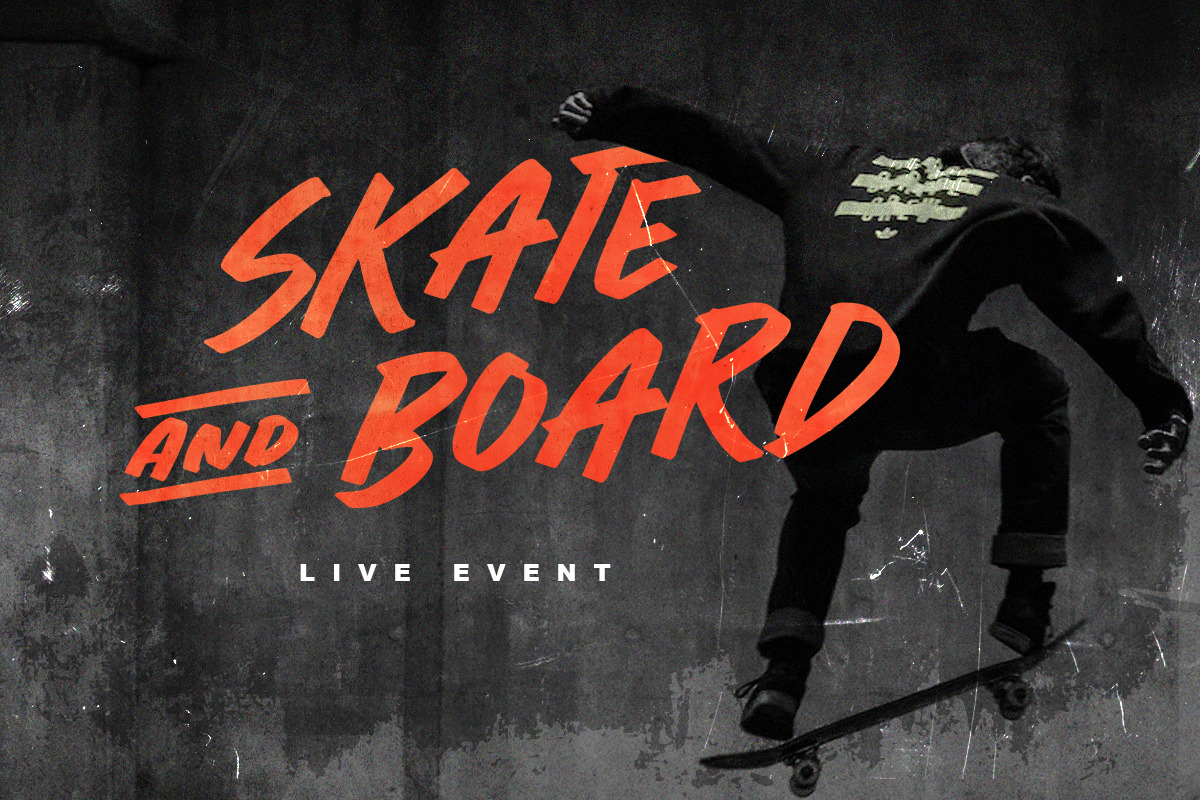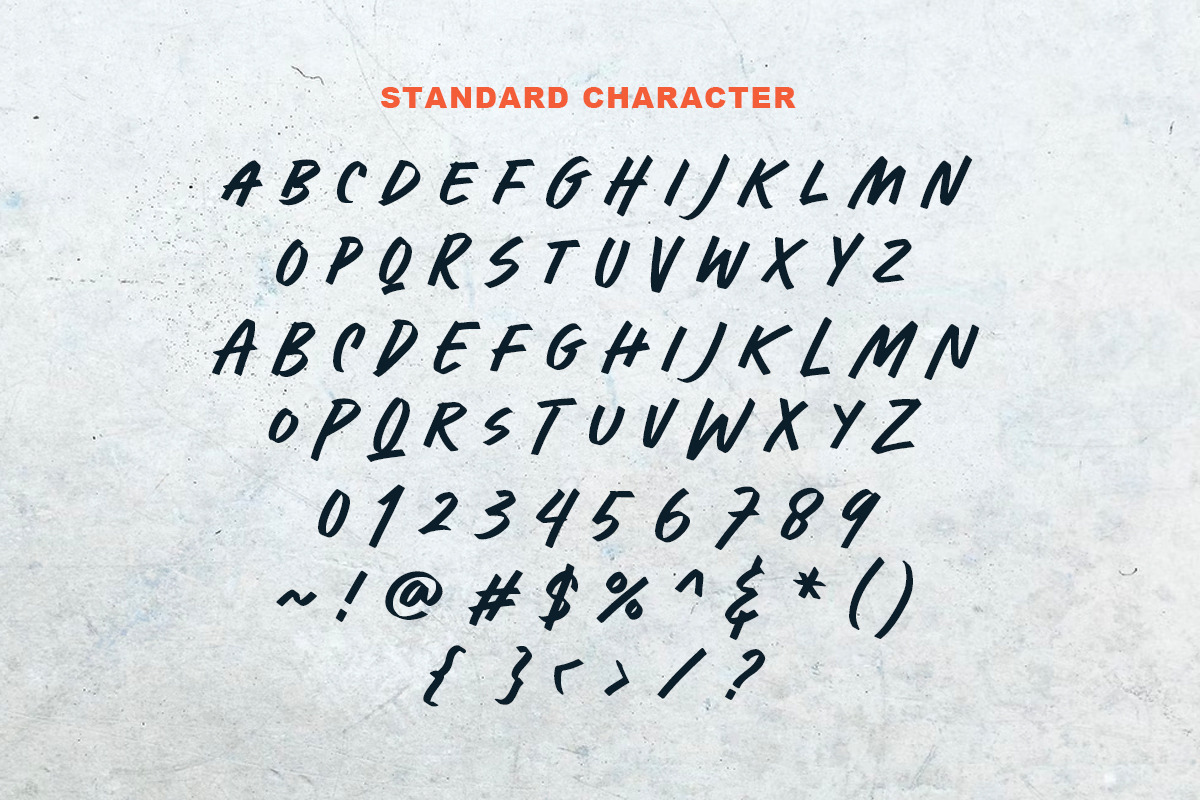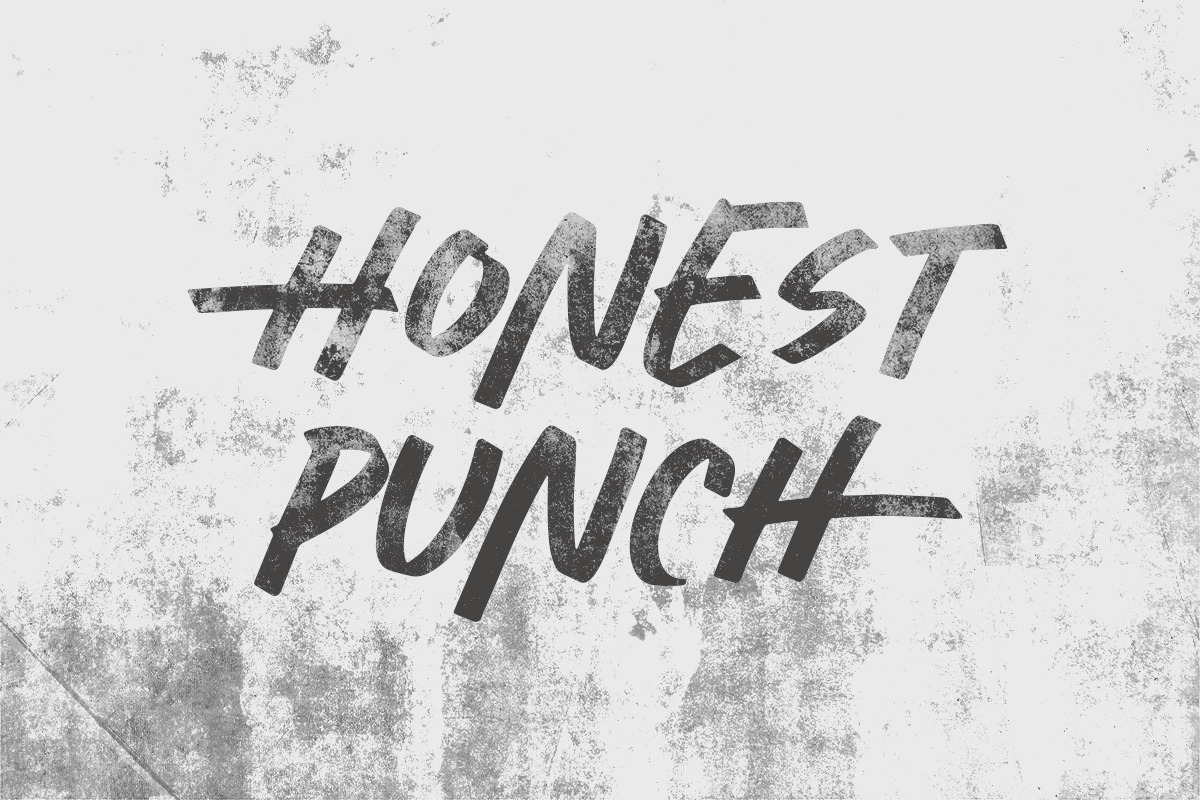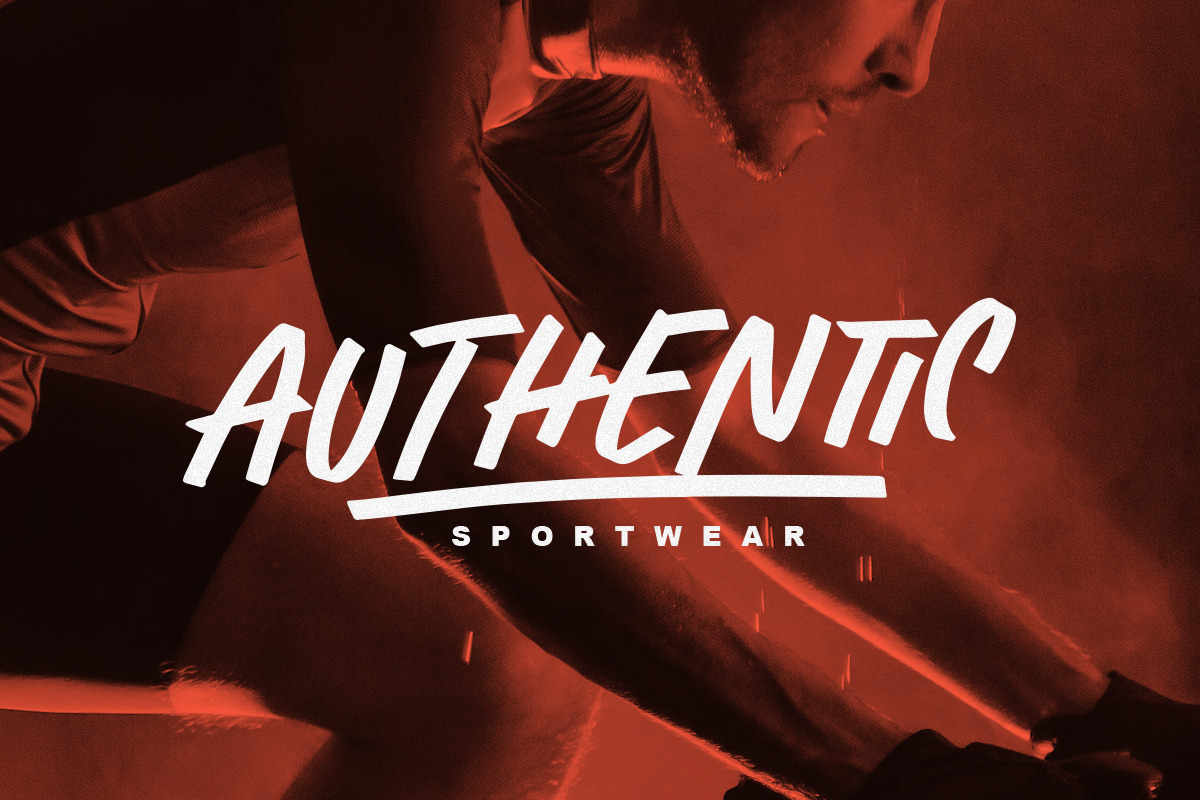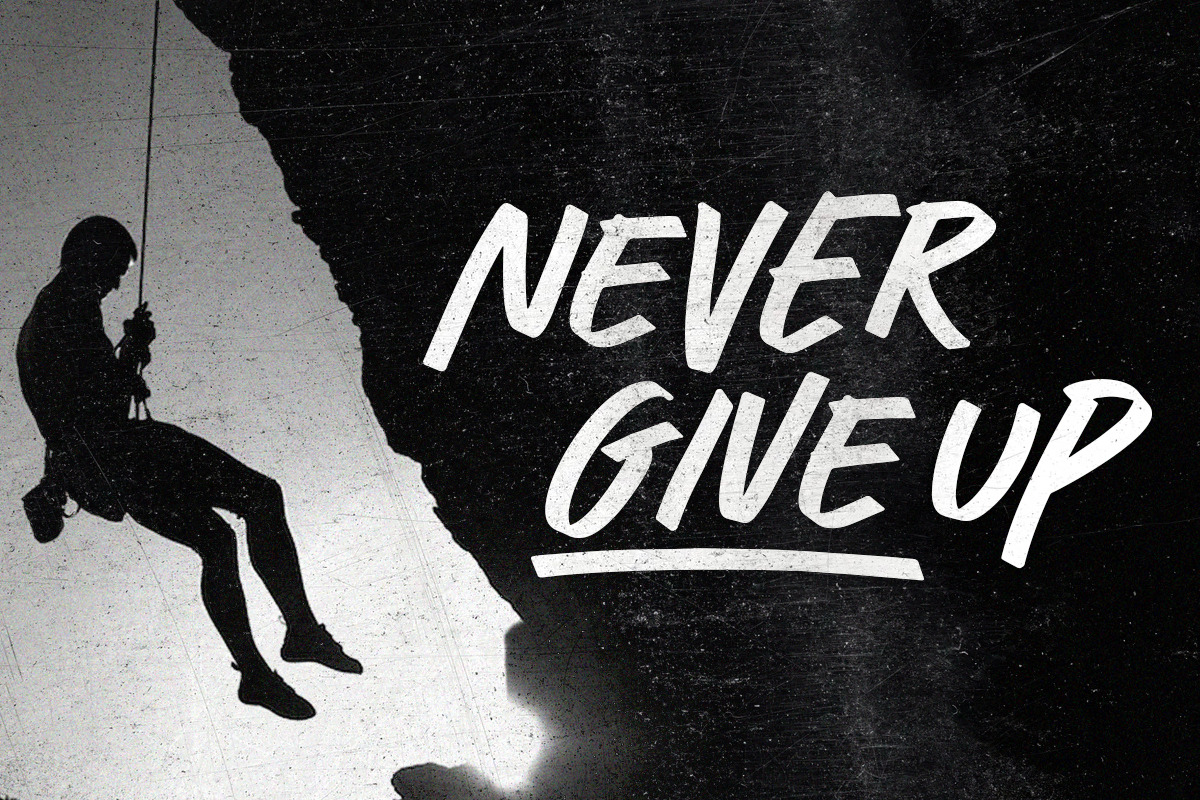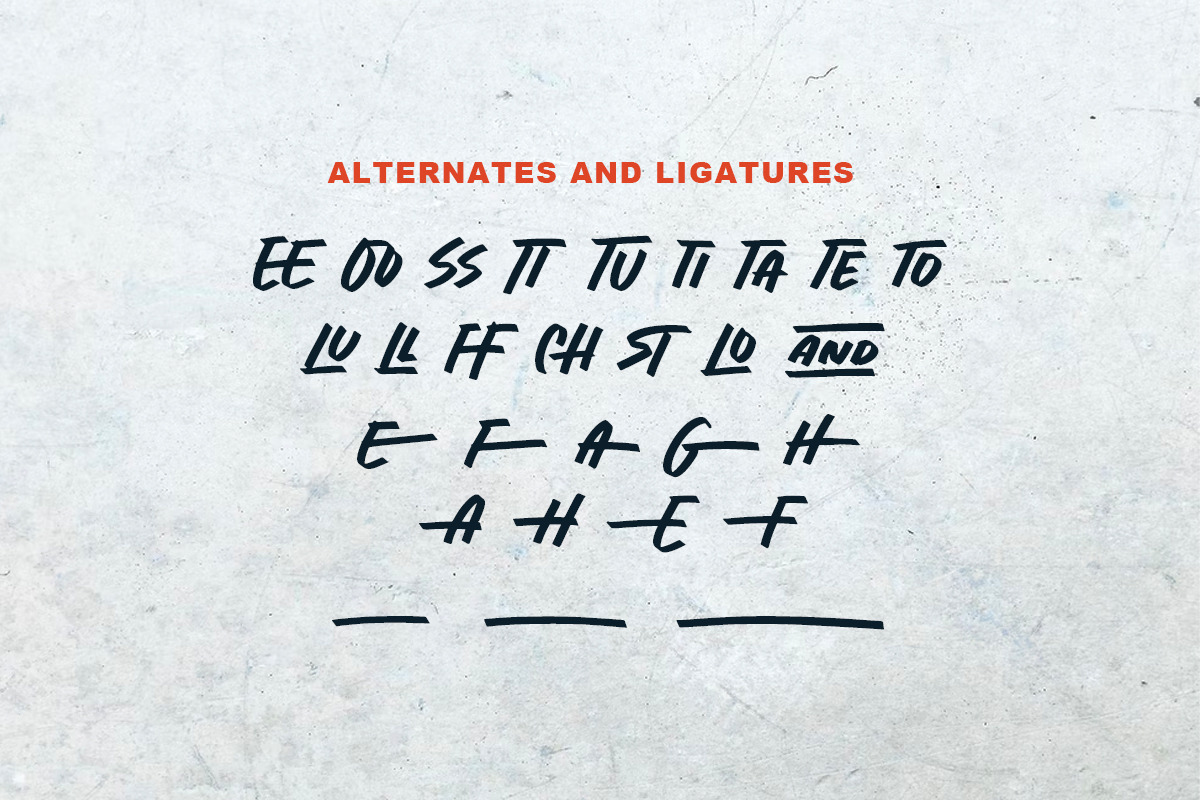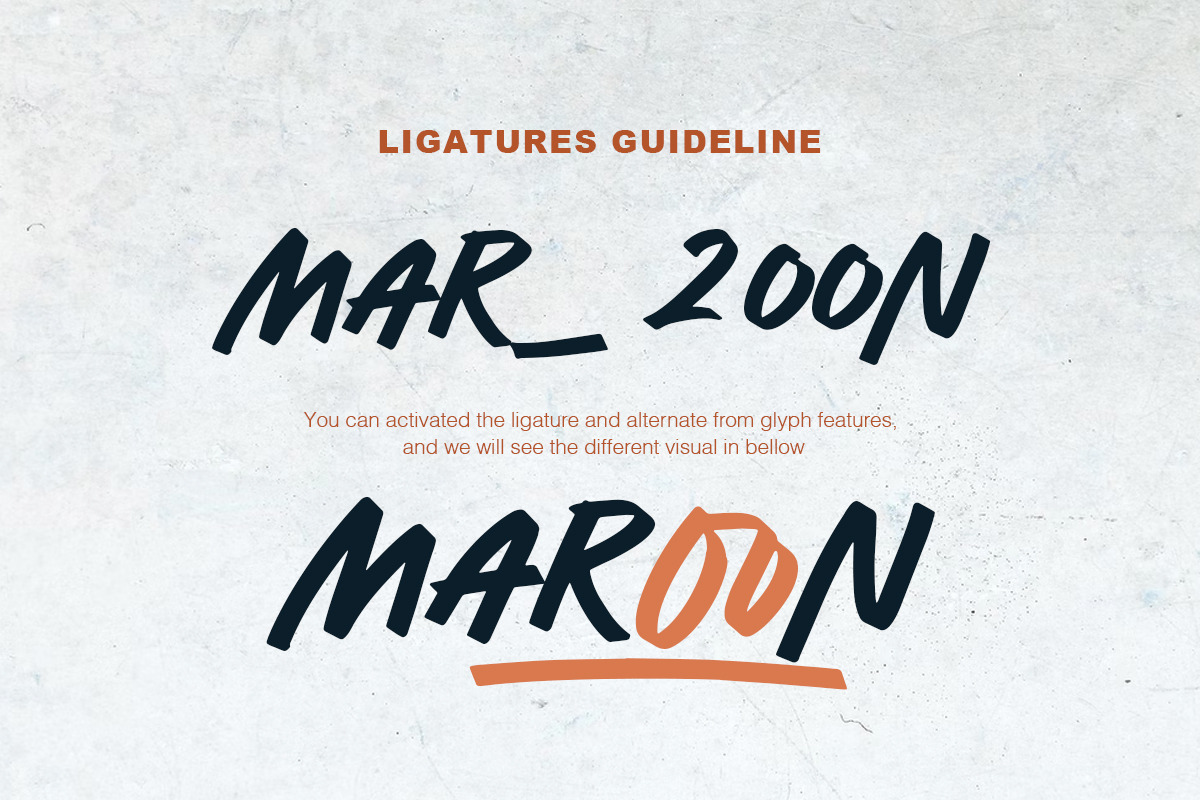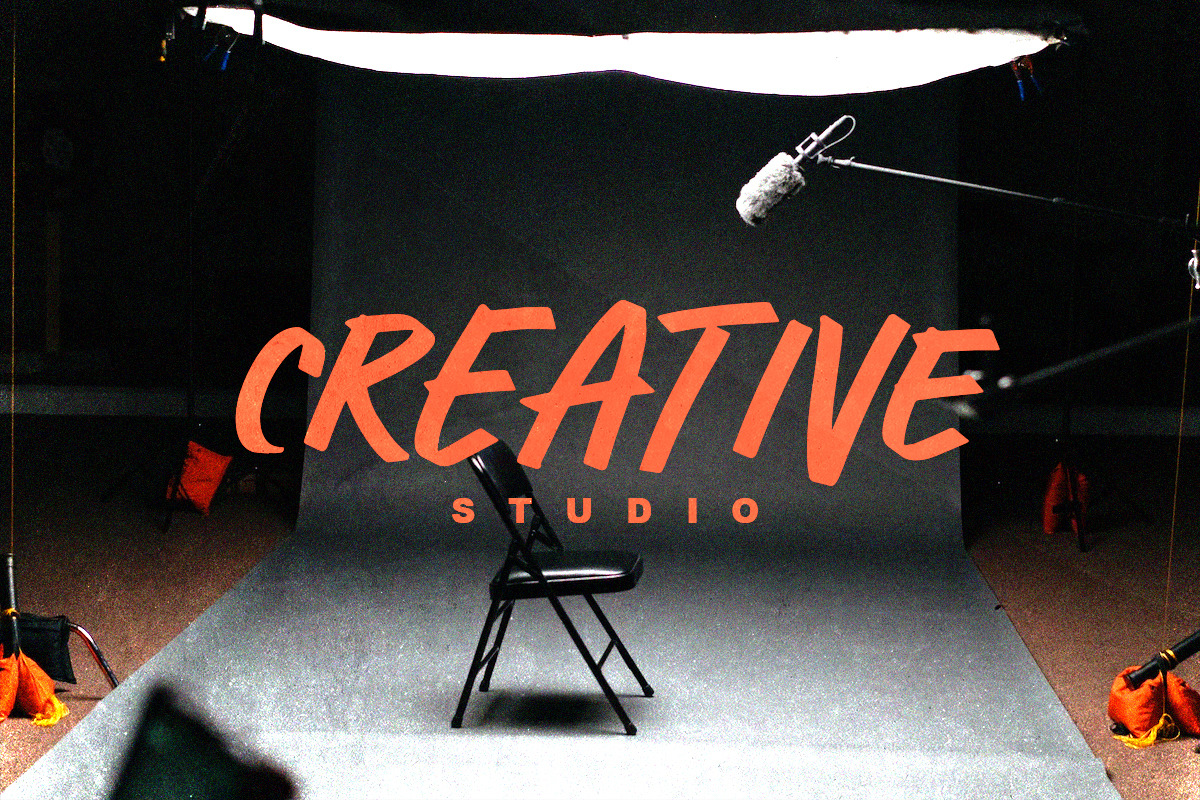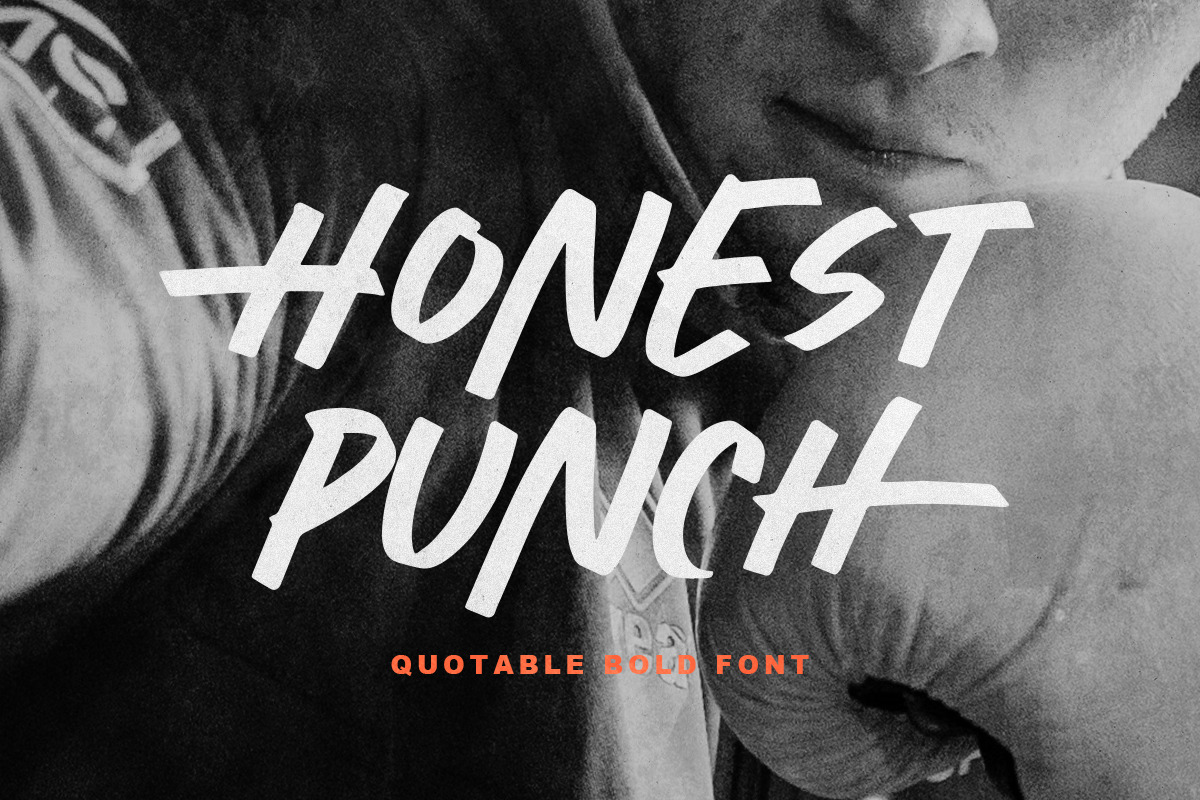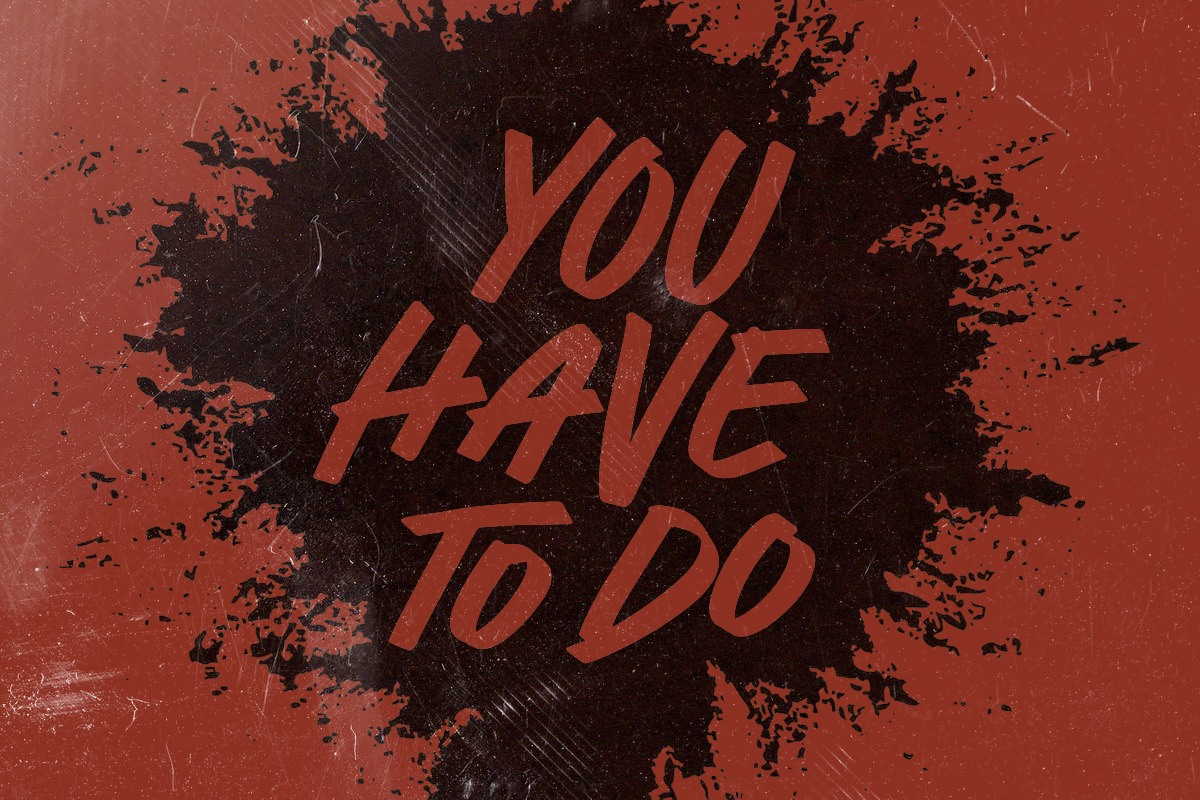
Honest Punch - Quotable Bold Font
Honest Punch is a bold and strong quotable font that you can use for any purposes. This font is very suitable for tagline and branding. With readability and clear looks, this font is perfect for quote. Honest Punch contains unique lowercase and uppercase that you can use at the same times in a word that will make your design more attractive. This font also contains ligature, underline, and support multilingual.